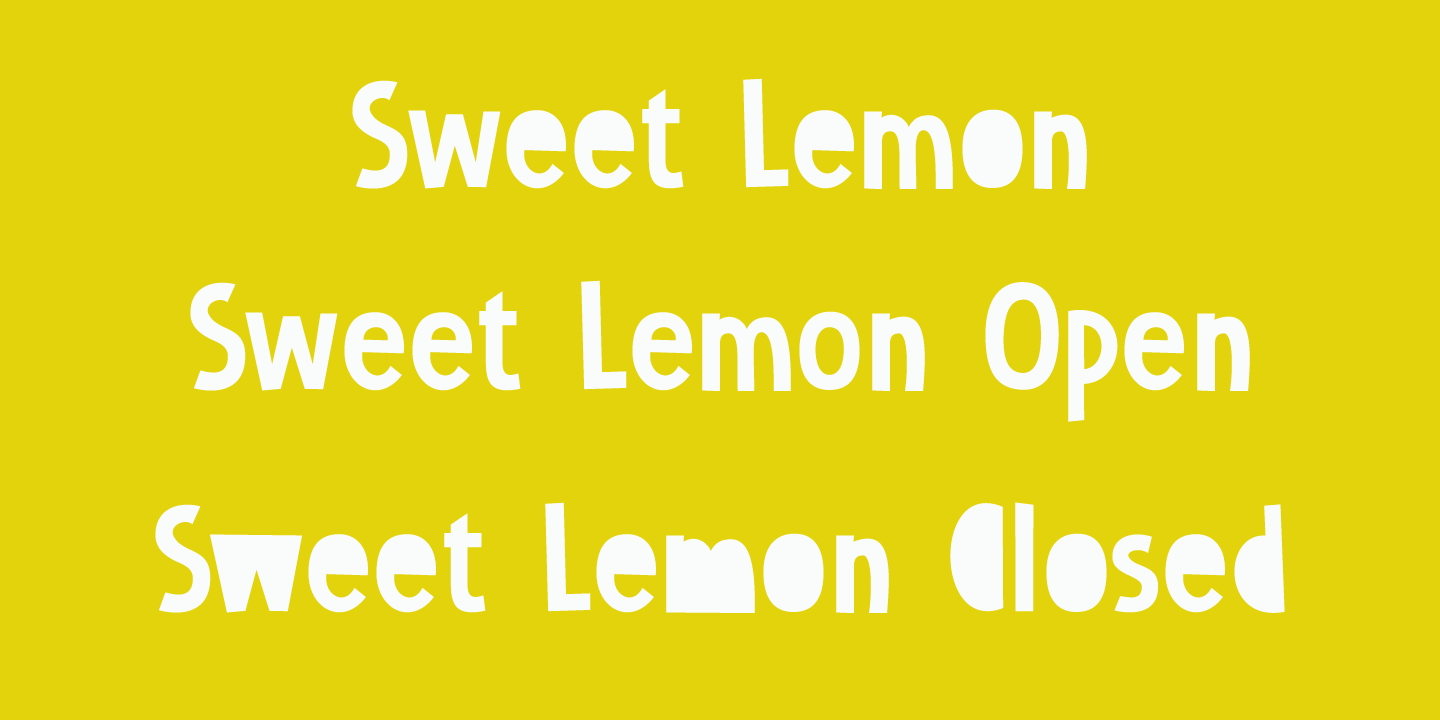
The Sweet Lemon Font is perfect for various design applications including bakery branding, restaurant menus, food packaging, children's book illustrations, greeting cards, wedding invitations, summer campaign designs, and lifestyle blog graphics. This cheerful typeface works exceptionally well for brands targeting young audiences and projects requiring a fresh, optimistic appearance.
What makes Sweet Lemon Font exciting is its playful and refreshing character that instantly brings joy and energy to any design project. The font features friendly letterforms with organic curves and delightful details that evoke feelings of happiness and warmth. Its approachable style and vibrant personality make it perfect for brands that want to connect emotionally with their audience and create memorable experiences.
The Sweet Lemon Font family includes multiple weights and styles, offering designers flexibility for diverse creative applications. The family typically consists of regular, bold, light, and script variations, along with decorative elements and swashes, providing comprehensive coverage for projects that need both functionality and artistic flair.
Whether you're working on food and beverage branding, children's products, or lifestyle marketing, Sweet Lemon Font Free Download delivers the cheerful quality and visual appeal that modern designers seek. The font's friendly design combined with its excellent readability makes it an essential choice for creating engaging visual communications that spread positivity and capture hearts.